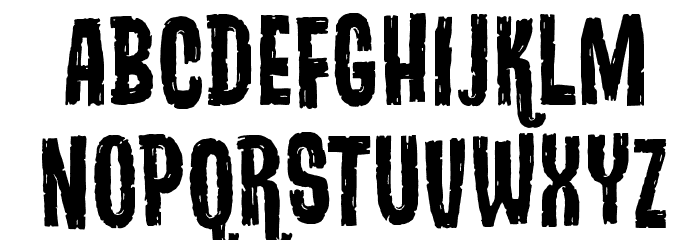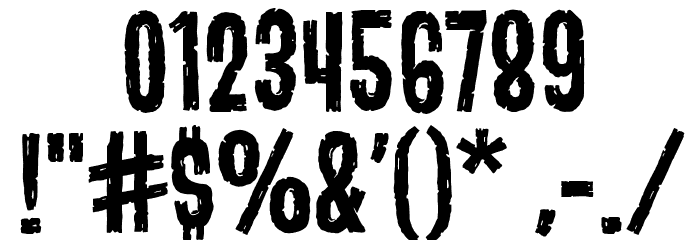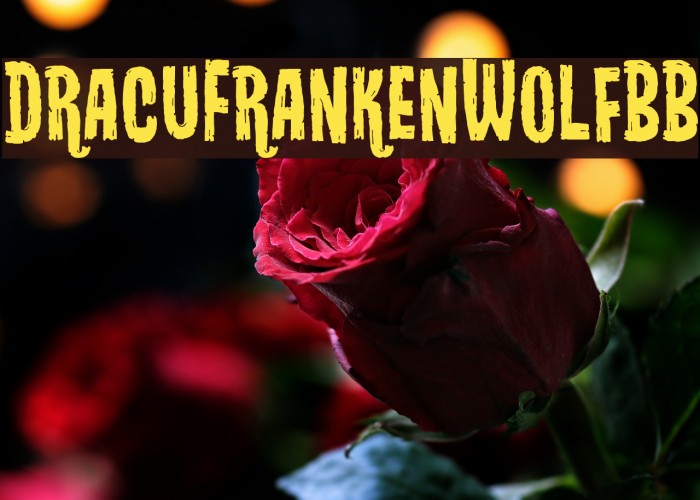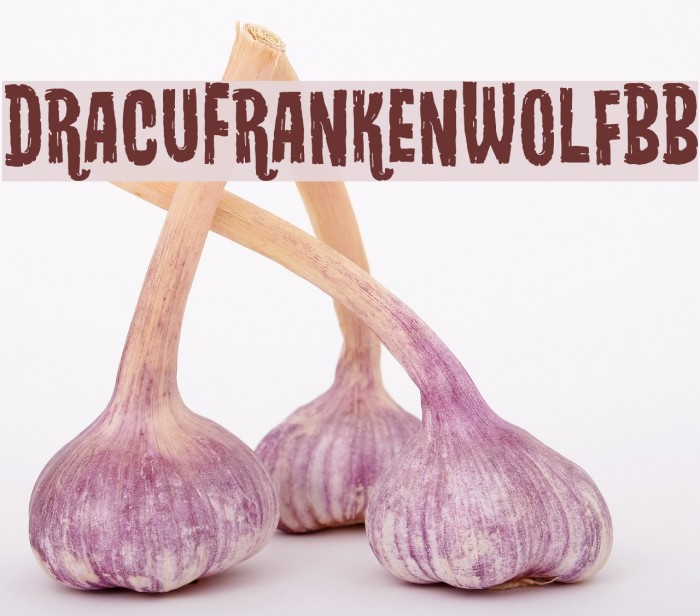
DracuFrankenWolfBB Font
This font features a bold and rugged design, characterized by its distressed and textured appearance. Each letter has a rough, uneven edge, giving it a hand-crafted, gritty feel. The uppercase and lowercase letters maintain a consistent style, with thick strokes and a slightly condensed form. The numbers and special characters follow the same aesthetic, making the font cohesive and visually striking. Its unique style evokes a sense of horror or mystery, suitable for themes that require a dramatic and impactful look.
A bold, distressed font with a gritty, textured appearance.
- Proposed Projects: Ideal for horror-themed posters, Halloween invitations, video game titles, or any project requiring a dramatic and edgy typeface.